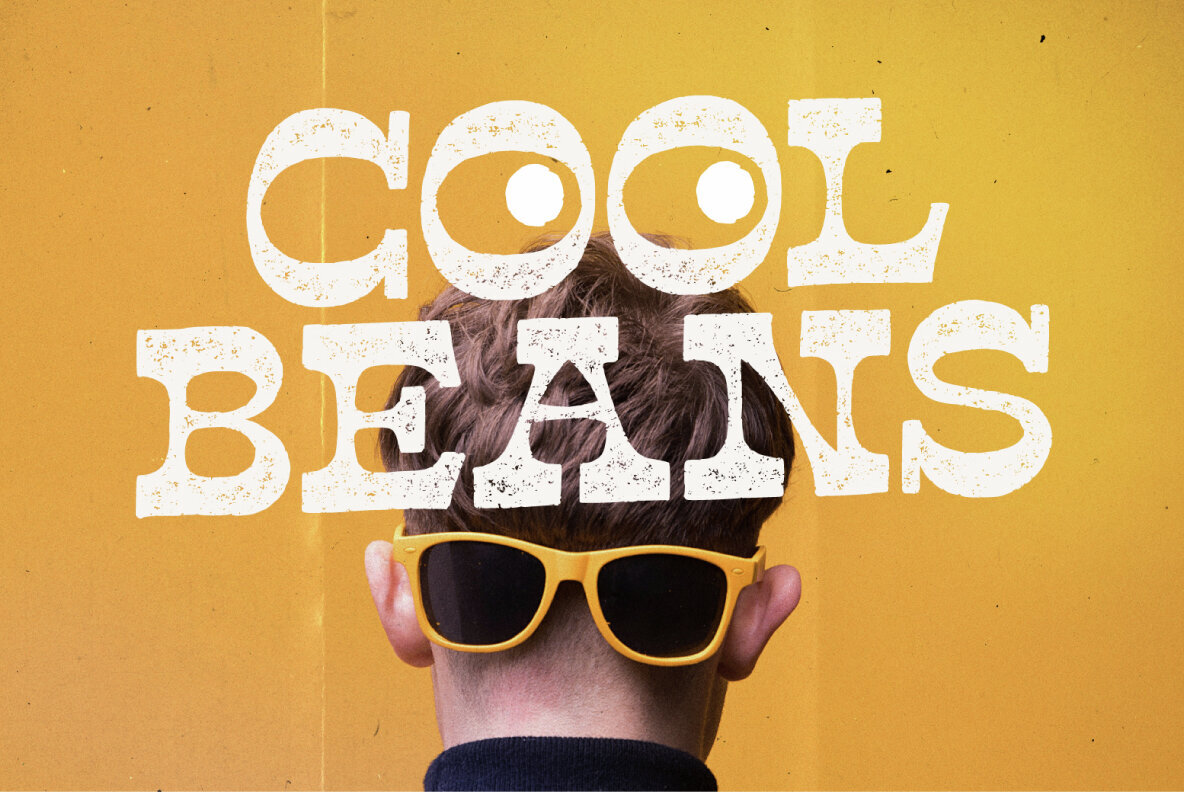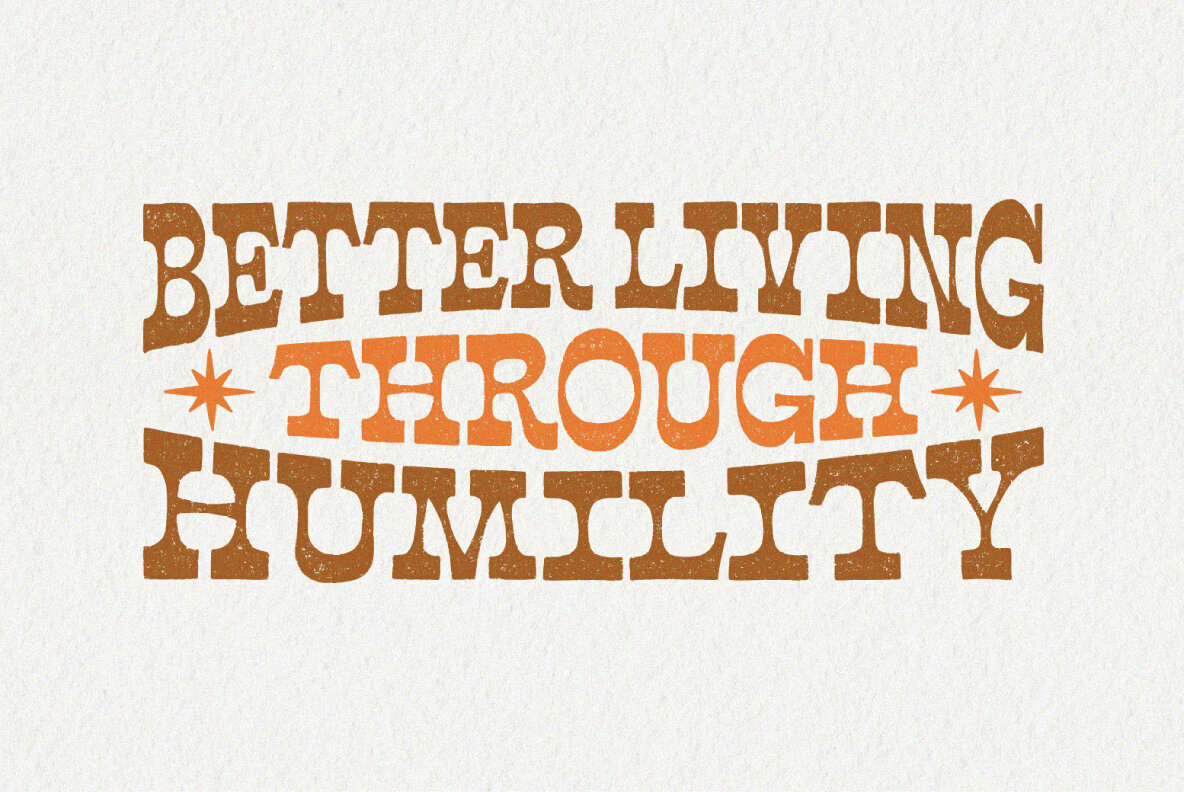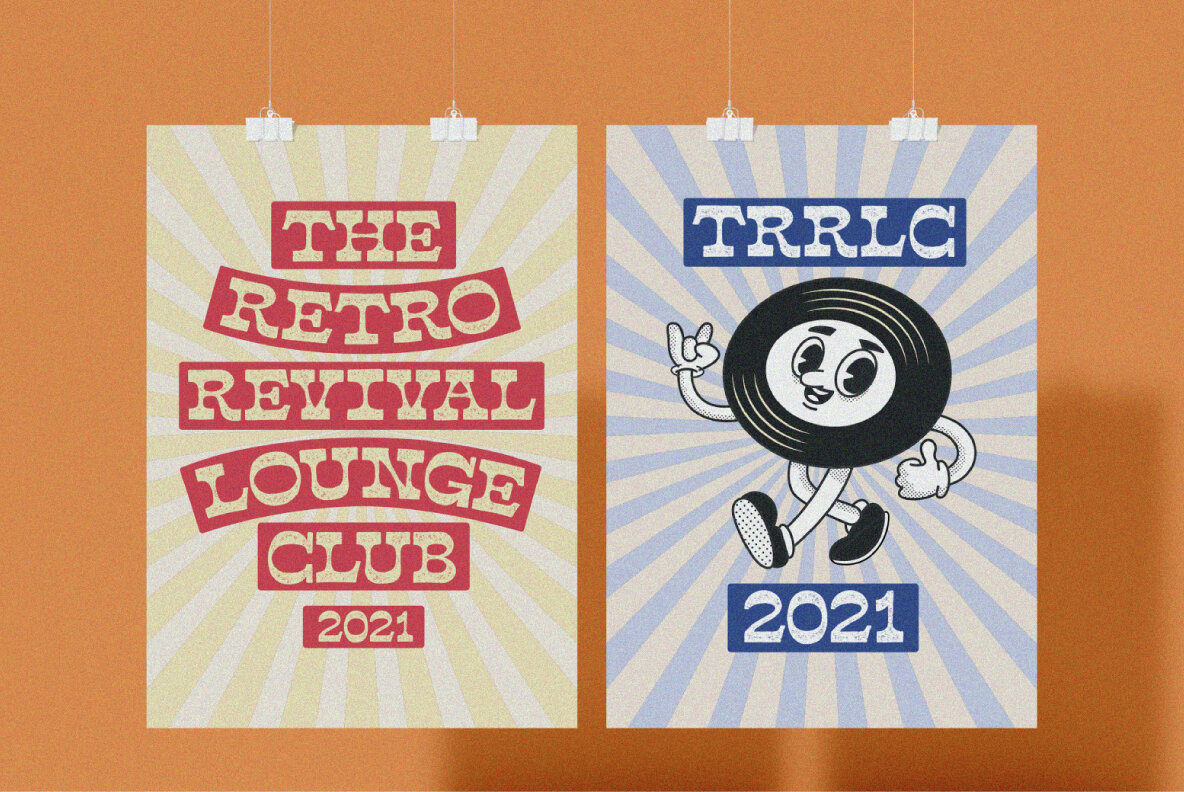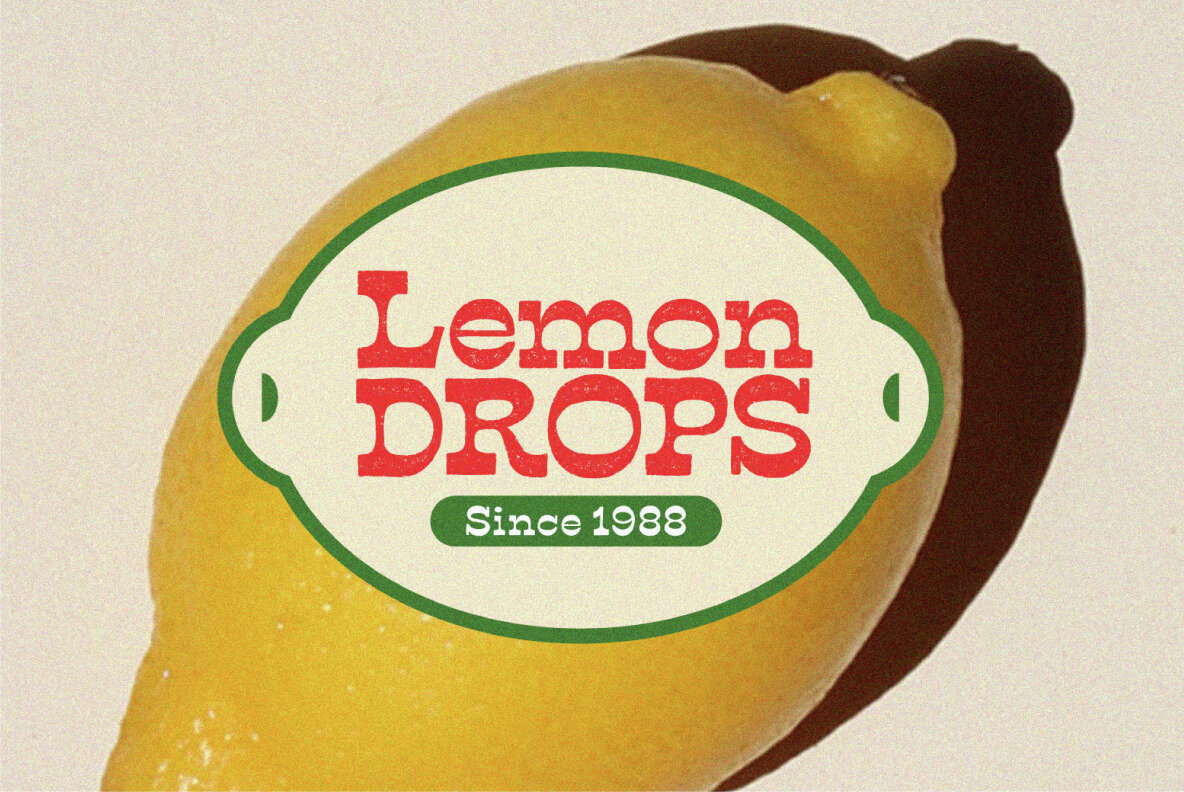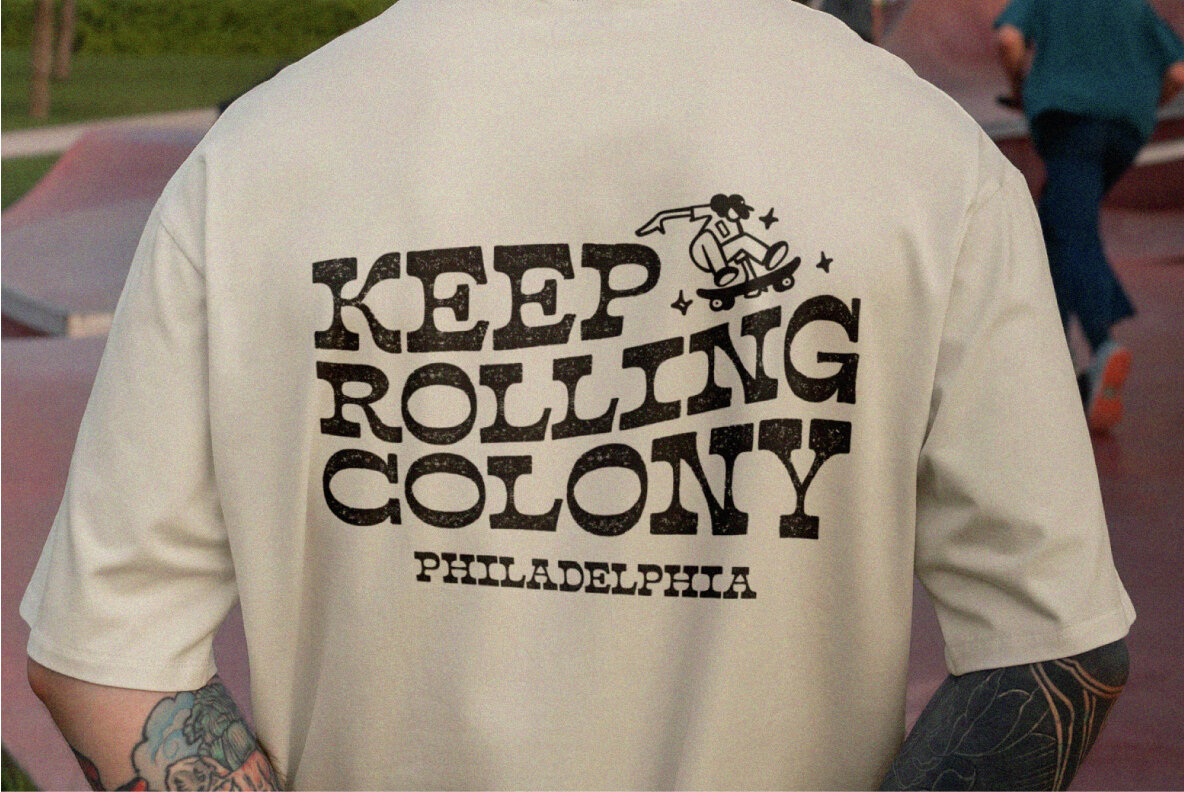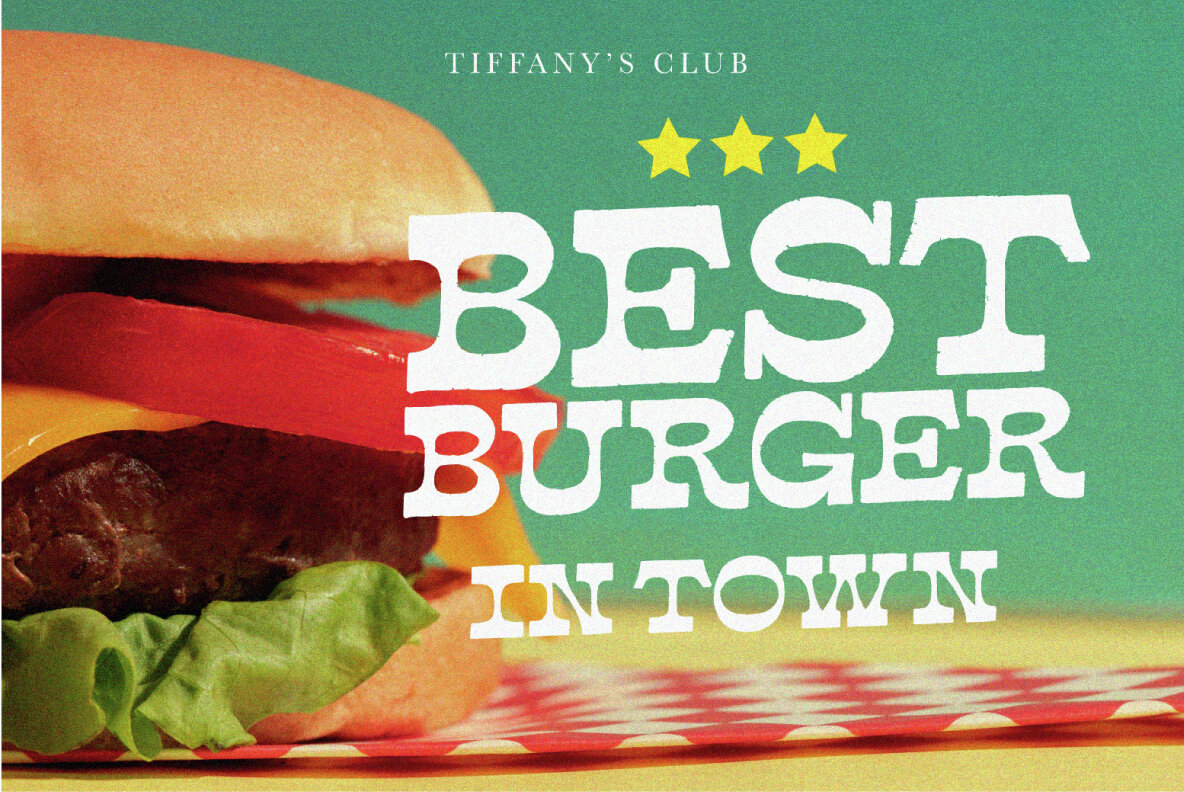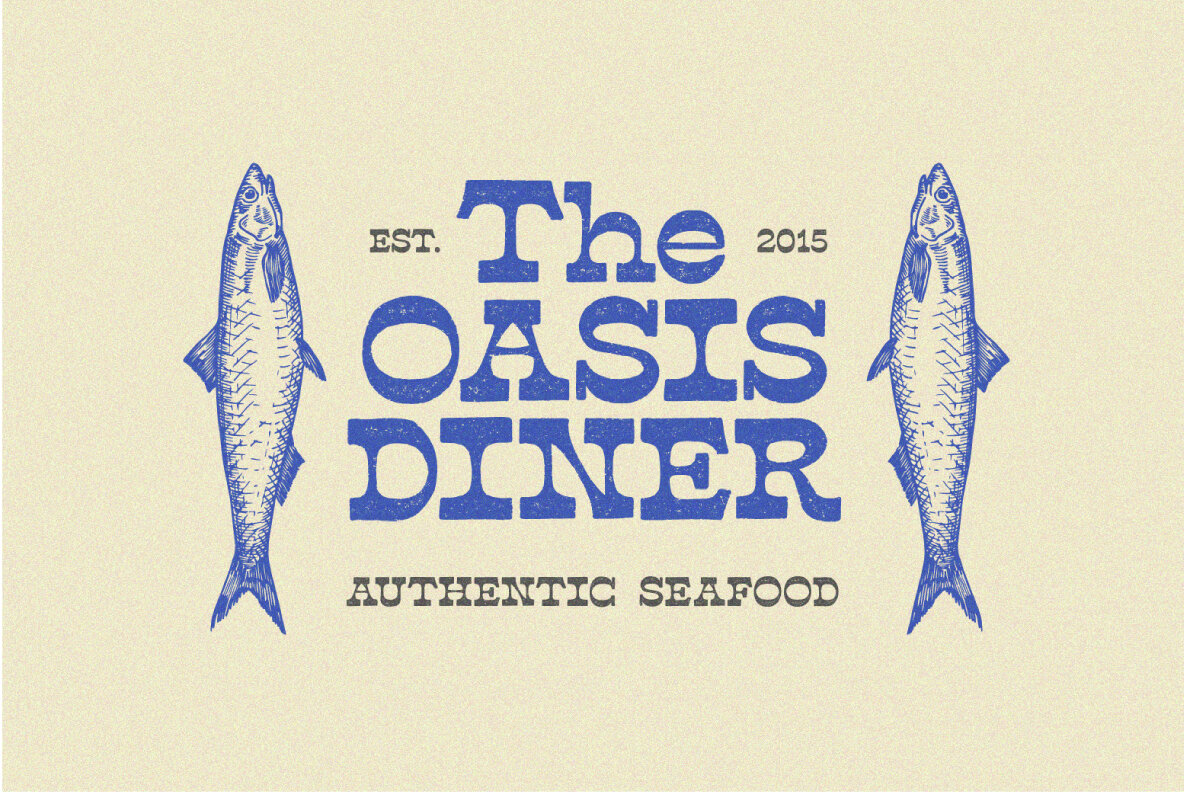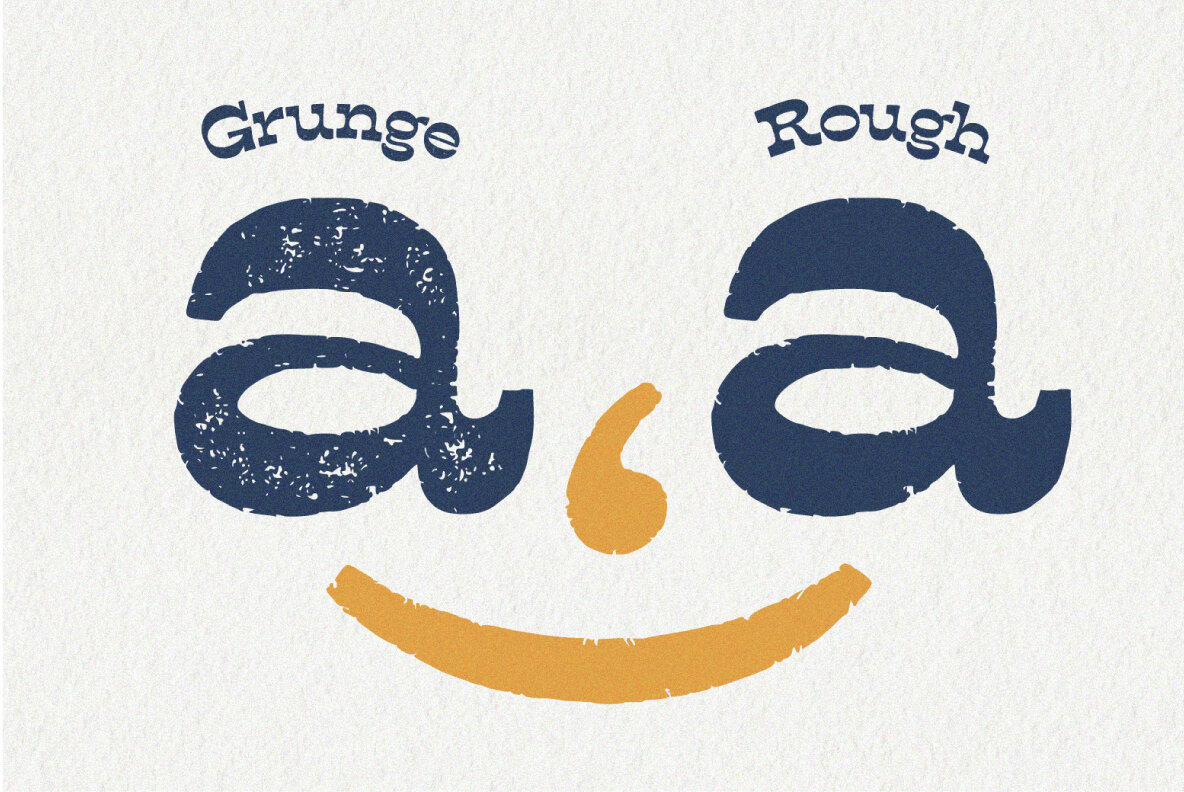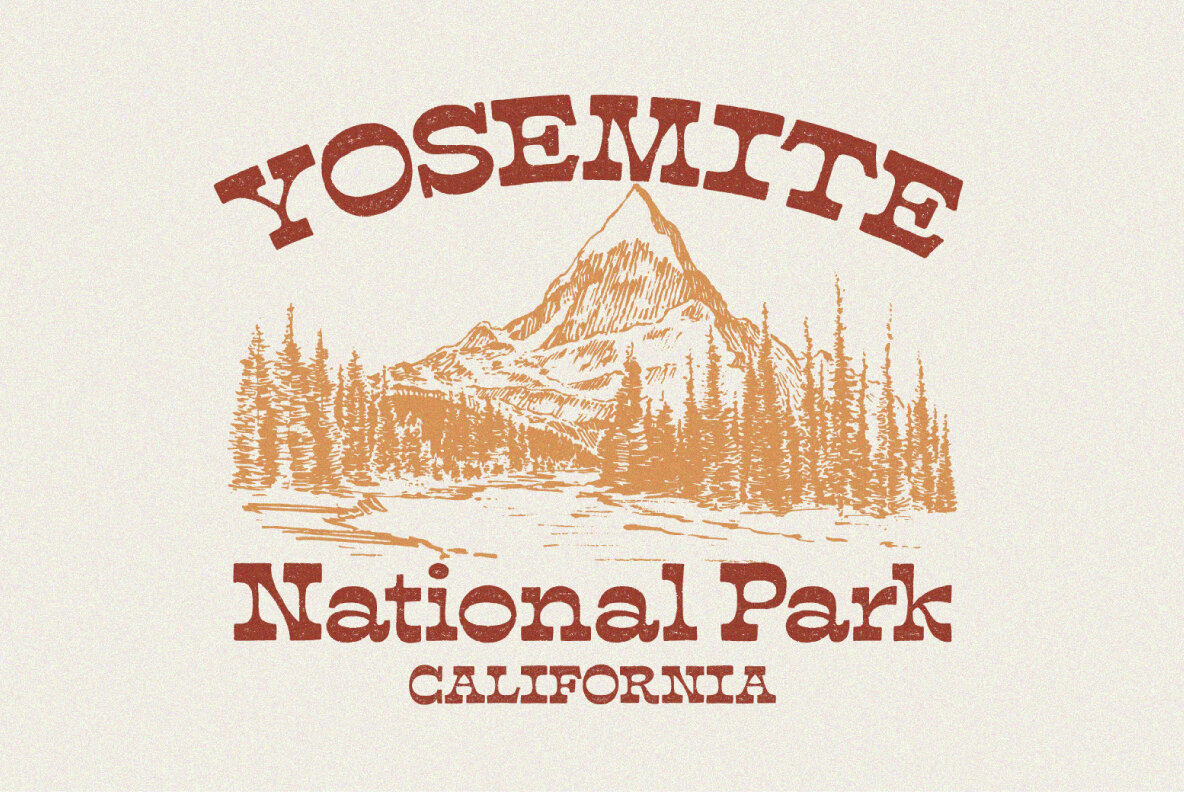
Funky Beats Font
Funky Beats is a robust, hand-drawn font capturing the essence of urban charm with its distinctive grunge texture. Offered in two unique styles—Grunge and Rough—this font is perfect for projects that aim for a gritty and unconventional aesthetic. It seamlessly fits into various design realms, such as logos, packaging, branding, and editorial work.Funky Beats: Chunky Hand Drawn Font with Urban Vibes